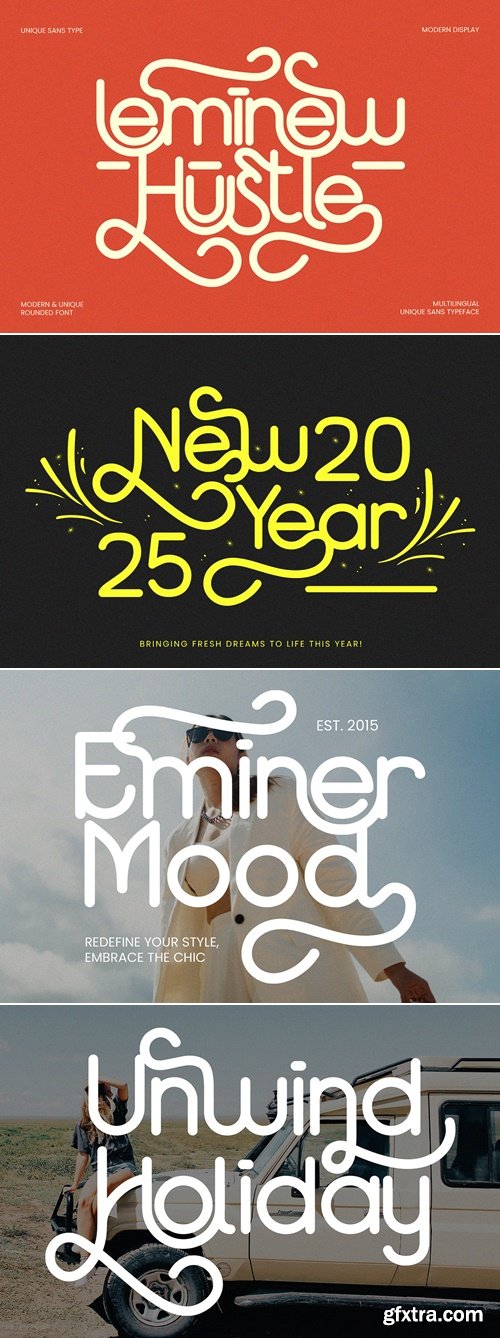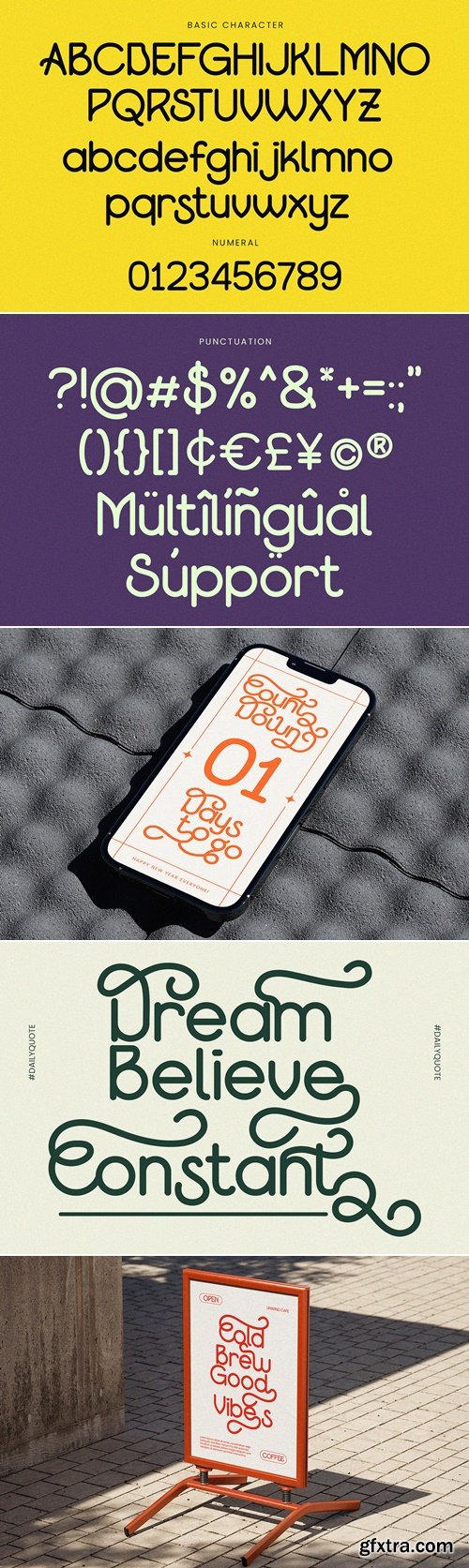
- Leminew is a sleek, monoline sans-serif with a unique twist. Ideal for modern branding, logos, and minimalistic designs, adding clean style to any project.
What's Included: Uppercase & Lowercase Characters: Fully designed for a complete typographic experience Numerals & Punctuation: All the numbers and punctuation marks you need for any design task Multilingual Support: Includes characters for multiple languages, ensuring global usability Features: High-Quality Design: Each font is crafted with attention to detail, ensuring a polished and professional look Easy to Use: Compatible with popular design software like Adobe Illustrator, Photoshop, InDesign, and more Editable and Scalable: Vector-based fonts that can be resized without losing quality